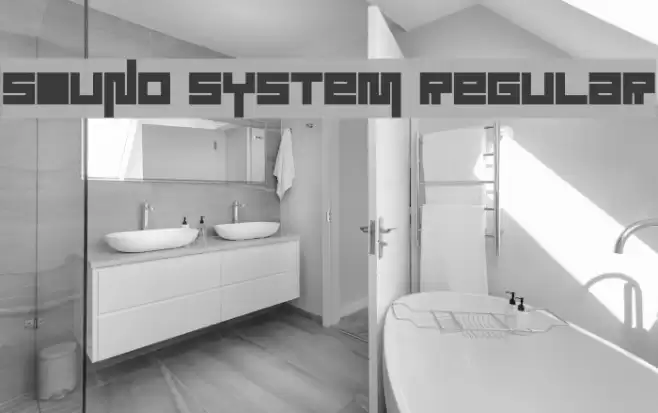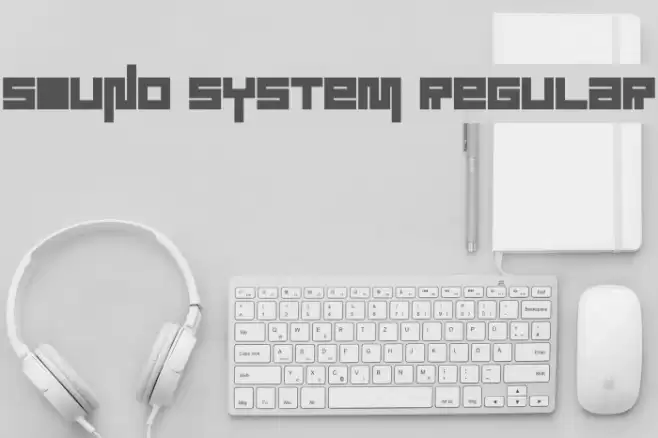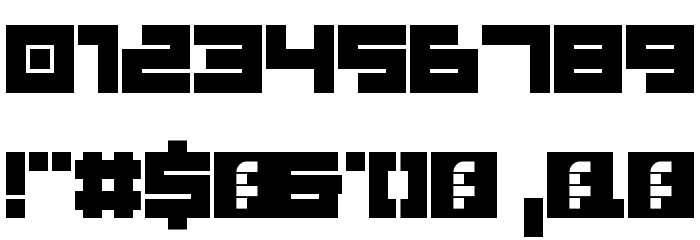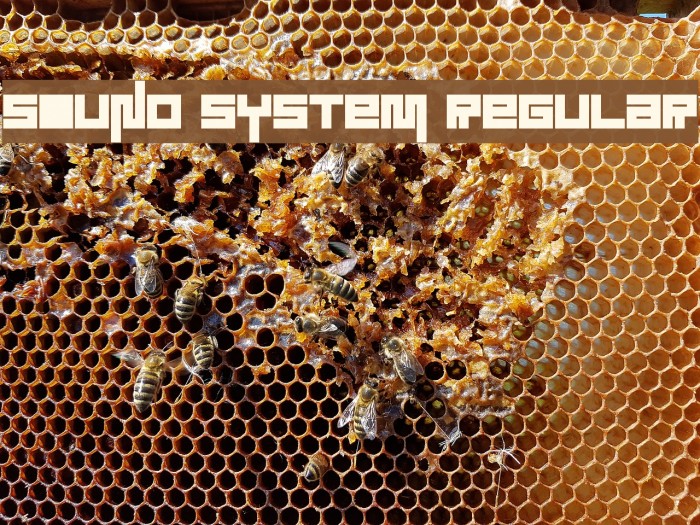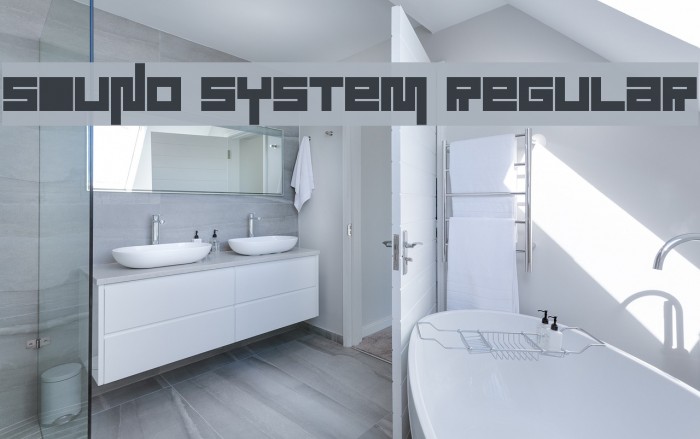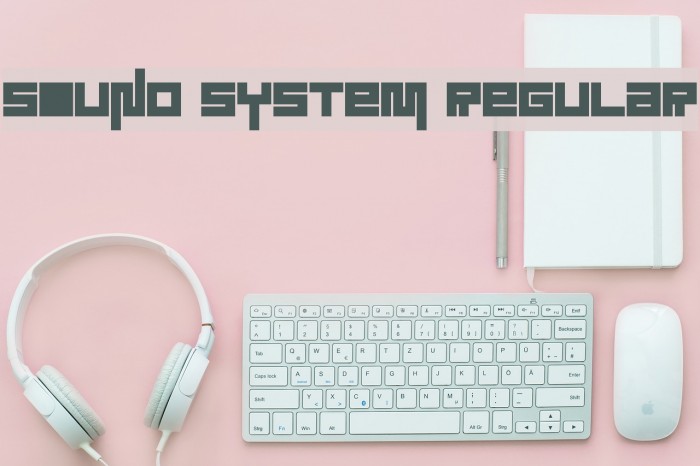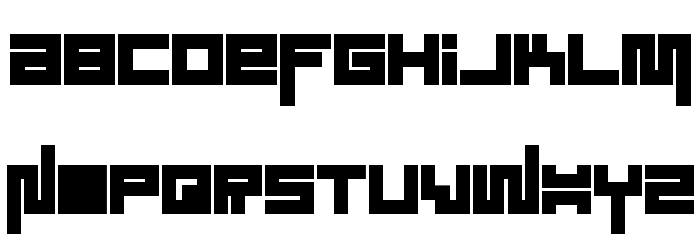
Sound System Regular Font
Sound System Regular Description
This font features a bold, geometric design with a distinctly modern and futuristic aesthetic. Each character is constructed with sharp angles and straight lines, creating a blocky and robust appearance. The uppercase and lowercase letters maintain a uniform height, contributing to a cohesive and structured look. Numbers and special characters follow the same design principles, ensuring consistency across all glyphs. The font's style is reminiscent of digital displays or retro gaming interfaces, making it ideal for projects that require a tech-savvy or industrial feel.
A bold, geometric font with a modern, futuristic style from Futuristic fonts.
- Proposed Projects: Ideal for tech-related branding, video game interfaces, posters, and digital displays.